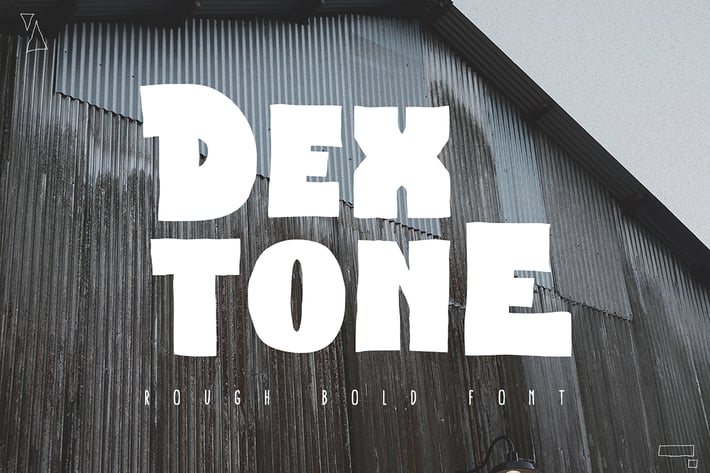
Dextone Typeface
a DEXTONE Typeface is Display Font. Can make it easier to convey the message in your design. Use for awesome display, Logo, labeling, clothing, movie sceen, poster, movie title, gigs, album covers, logos, and much more.
Numerals & Punctuations